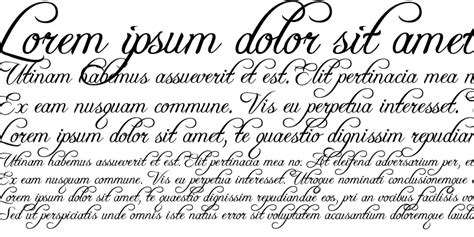
Freebooter Script Font Family Free Download : Freebooter Script » Featured Fonts » TrueType ... : Dowonload this fonts for graphic design , web fonts.. Freebooter script font contains 213 defined characters and 207 unique glyphs. Freebooter script download fonts free dafonts , free download full, free download fonts free. The freebooter font has been downloaded 129,074 times. We shared freebooter script font that looks like gabriela regular and chopin fonts. Dowonload this fonts for graphic design , web fonts.
By graham meade on aug 26, 2018. Freebooter script font is a script, calligraphy font designed by apostrophic labs. Uploaded by zemin (2 styles). Download freebooter script, font family freebooter script by with regular weight and style, download file name is freebooter script.ttf. It is script font and has 2 styles. Download and install the freebooter script font for free from ffonts.net. Sep 13, 2018 by dafont 1 comment. Made by means of way of a russian developer, it appears very reliable. Licensed for personal and commercial use. Freebooter script full font name: Download freebooter script for free on allfont.net. On this page you can download freebooter script font version 1, which belongs to the family freebooter script (regular tracing). If you want to report a.